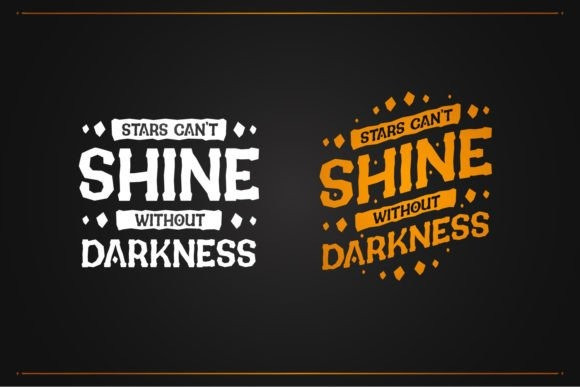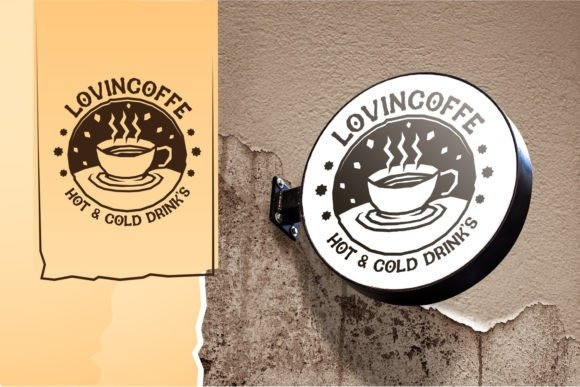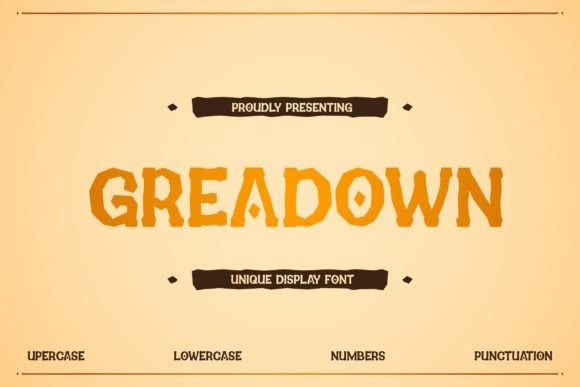
Greadown Font
Greadown Display Font is a cool, vintage-looking display font. Its natural and unique style makes it incredibly fitting to a large pool of designs. The only limit is your imagination!